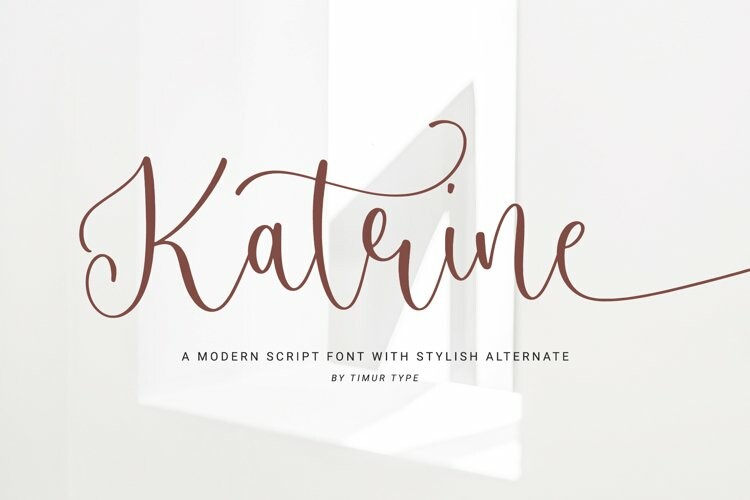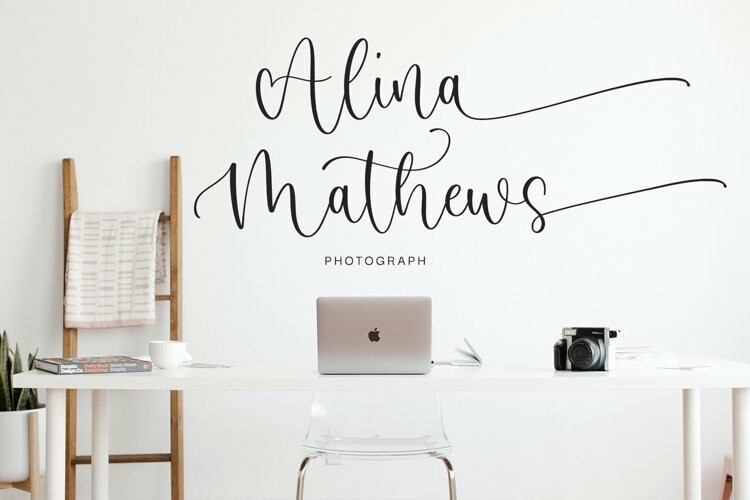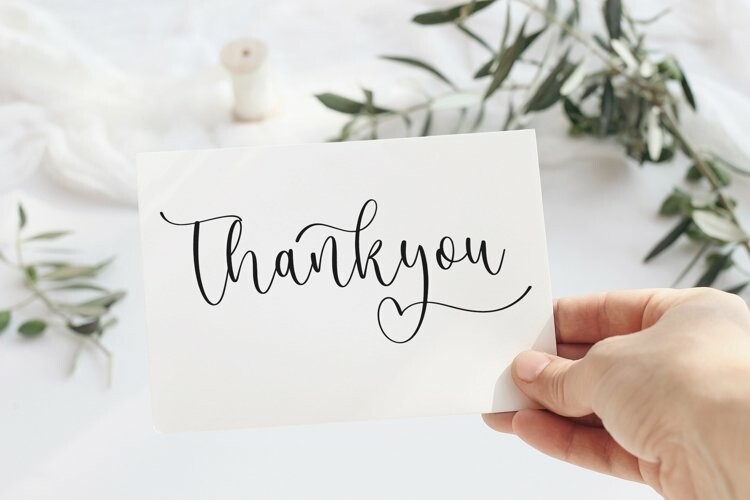
Katrine a Modern script font
Katrine FontKatrine is a Modern script font, which was created with great care and specially created for you .
Katrine Font